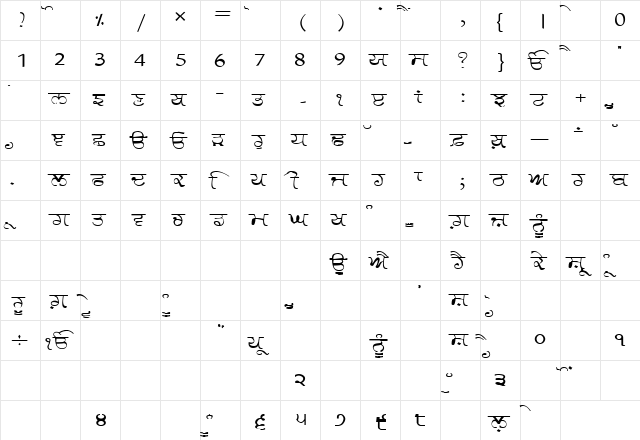
GurmukhiLys 030 Wide Normal
Design Context for GurmukhiLys 030 Wide Typeface
GurmukhiLys 030 Wide is a composed and adaptable typeface that performs quietly and consistently across a wide range of design contexts.